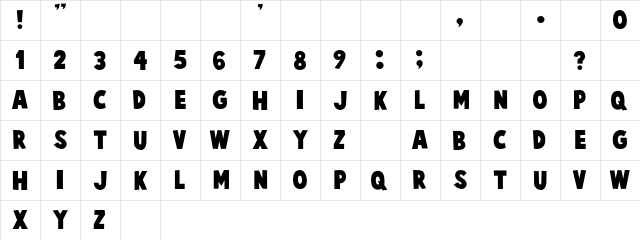
Cartoonist Kooky
| Foundry | George Edward Purdy |
| Designer | George Edward Purdy |
Design Context for Cartoonist Typeface
Cartoonist trades formality for fun, with bouncy, characterful letterforms that bring warmth and energy to any project.
Font Pairing: Pairs well with a rounded or humanist sans for body copy, maintaining the friendly tone without relying on Cartoonist to carry extended reading.
Pro Tip: Avoid using Cartoonist for long passages of text — it works best for headlines, labels, and short calls to action.